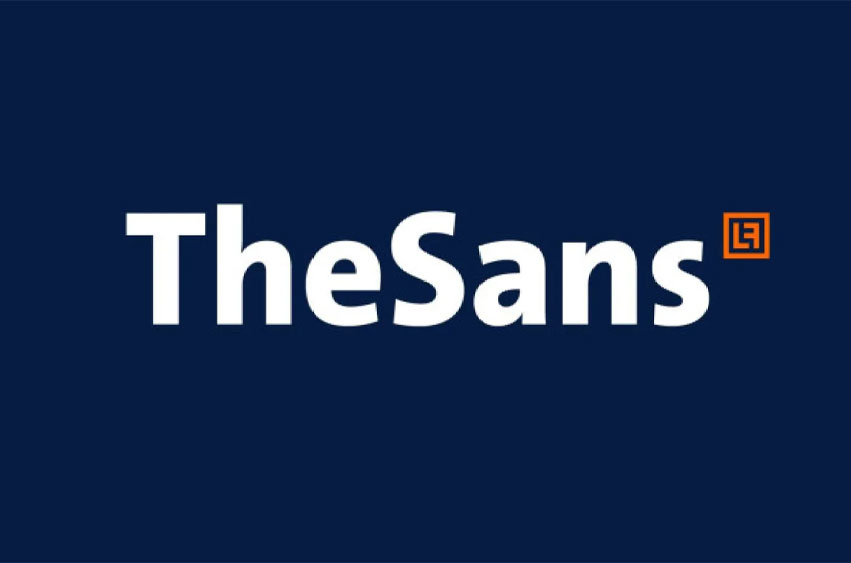
TheSans Font
TheSans Font Originally, this font appeared to as a unique font of the modern style with. TheSans – It is an iconic modern font, beloved for its usage in the corporate and editorial designs.
With numerous weights and widths produced, TheSans offers hairline fonts as options; it is the most commonly-used font in the corporate, editorial, and other media industries.